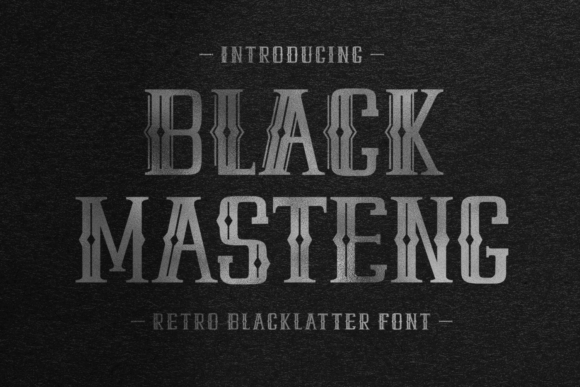
The Retro Charm of Black Masteng Font: A Designer’s Delight
I’ll never forget the struggle I faced while working on a vintage-themed project for a client. The brief was simple: create a poster that screams “old-school cool.” But, as I scrolled through my font library, I just couldn’t find the right fit. That was until I stumbled upon Black Masteng Font. This retro-style blackletter font has been a game-changer for me, and I’m excited to share its awesomeness with you! ✨
An Honest Review of Black Masteng Font
- ✅ Classy and unique aesthetic that adds a touch of sophistication to any design
- ✨ Retro vibe that’s perfect for vintage-themed projects, Halloween designs, or even Gothic-inspired art
- 🔥 Highly legible, even in smaller sizes – a major win for designers!
- 🎨 Versatile and works well for both digital and print projects
While Black Masteng Font is an amazing addition to any design project, there are a few things to keep in mind: 🤔
- ⚠️ Some characters may not work well in all contexts, so be sure to test the font with your specific project requirements
- ⚠️ May not be the best choice for very long texts or body copy, as it’s quite ornate
A Practical Guide to Using Black Masteng Font
The Inspiration Behind Black Masteng Font
Black Masteng Font was inspired by the rich history of blackletter typography. Its designer drew inspiration from ancient manuscripts, Gothic architecture, and vintage posters to create a truly unique font. The result is a stunning typeface that adds a touch of class and sophistication to any design.
Q: What type of projects is Black Masteng Font best suited for?
A: Black Masteng Font is perfect for vintage-themed projects, Halloween designs, Gothic-inspired art, and luxury brands.
Q: Is Black Masteng Font easy to read?
A: Yes, Black Masteng Font is highly legible, even in smaller sizes. However, it’s best suited for headlines, titles, and short texts rather than long body copy.